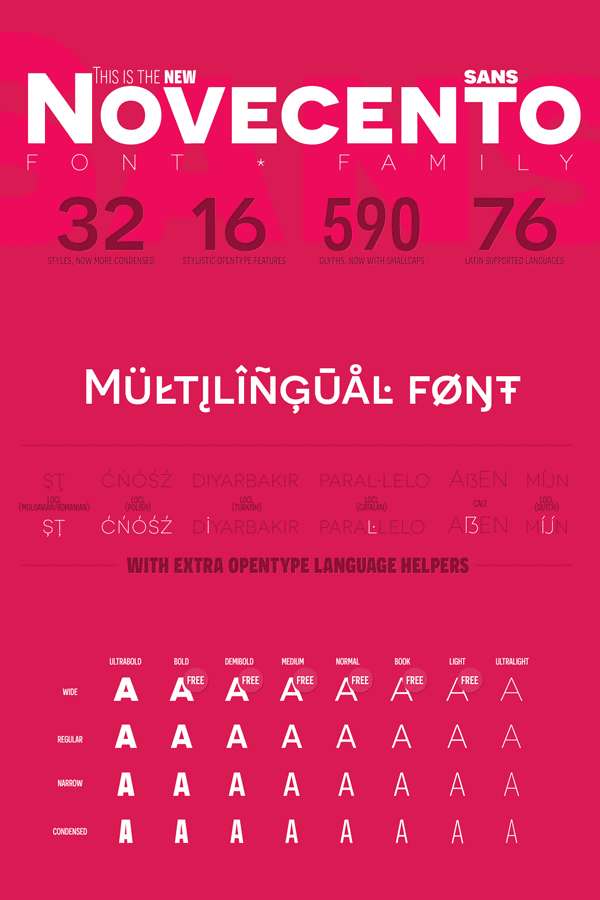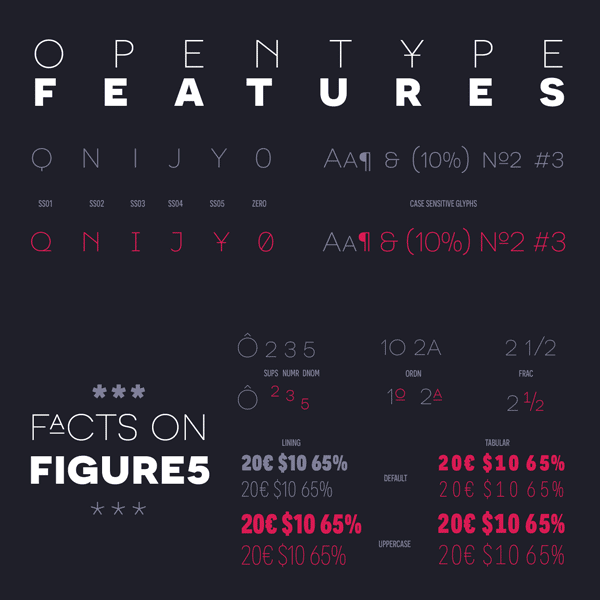
Novecento Sans – Uppercase-Only Font Family.
The Novecento Sans font family was designed by Jan Tonellato (Type Foundry: Synthview). Novecento Sans is an uppercase-only font family that offers a rational geometric look. The family consists of 32 styles in total and supports 76 latin based languages. Its typeface is a great choice for striking headlines and visual identities. Novecento Sans is packed with 16 stylistic OpenType features for professional typography. You can get this beautiful font family as Webfont as well as Desktop font.